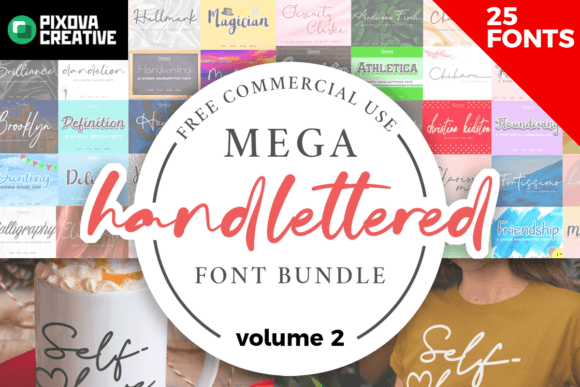
Explore the possibilities with Mega Handlettered Vol. 2 Font, a font that offers both beauty and functionality. Introducing the MEGA 25 Handlettered font BUNDLE volume 2! 25 unique elegant, hand-crafted fonts for your creative projects. Easily installed in a few clicks! Preview fonts down below!
Mega Handlettered Vol. 2 excels in display applications such as headlines, logos, and short impactful quotes. Its handcrafted nature makes it ideal for branding projects needing a touch of elegance and personality, particularly in the fashion, beauty, or lifestyle sectors. Avoid using it for large bodies of text or UI elements; its decorative style is less legible at smaller sizes.
This font family’s core personality is sophisticated yet approachable. To complement this, consider pairing it with a clean sans-serif like Montserrat for body text or a geometric sans-serif like Futura for a more modern feel. A subtle serif like Lora could also work well for a balanced, classic look.
For a more playful design, explore pairings with a script font, but ensure legibility by using the script sparingly. Avoid pairing Mega Handlettered Vol. 2 with other highly decorative or overly bold fonts, as this could create visual clutter.